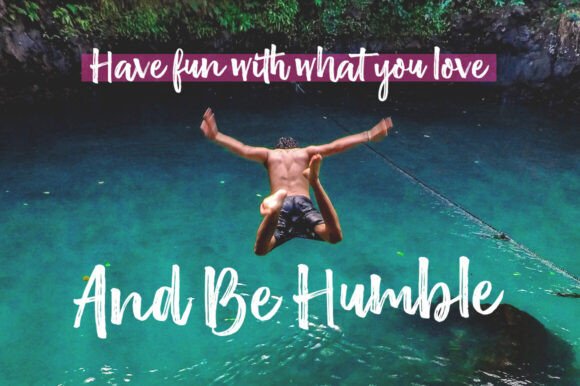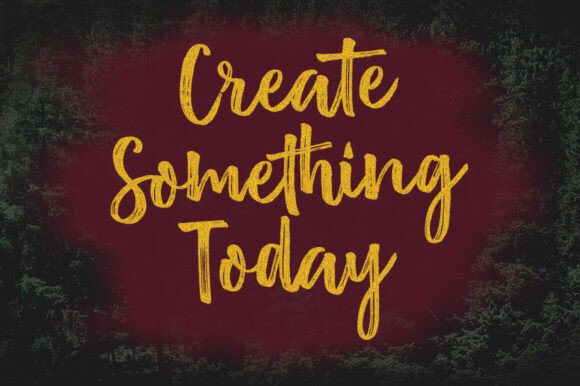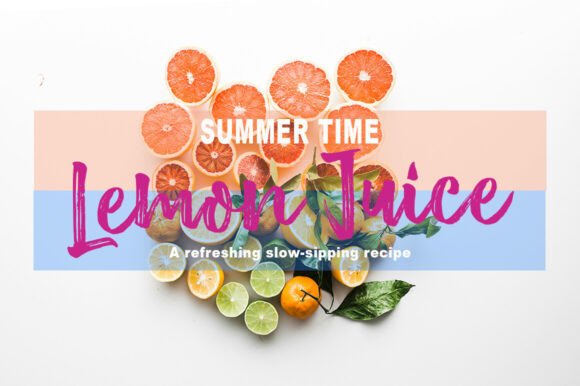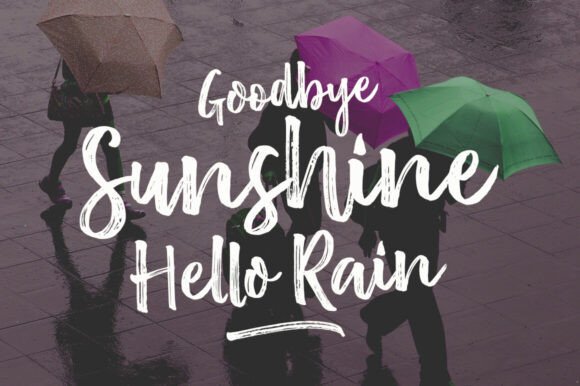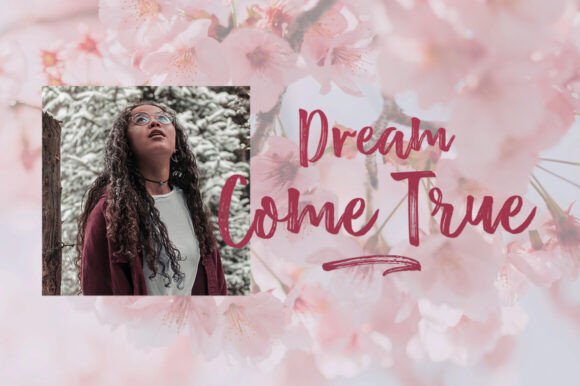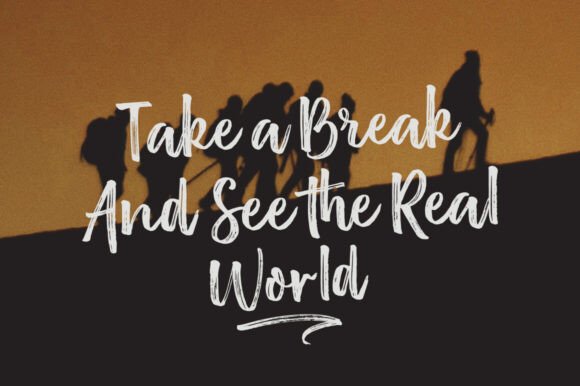
Introduction to Shellow Font
Have you ever been working on a creative project and suddenly, the perfect font pops into your head? For designers, finding that elusive font can be the difference between a mediocre design and a stunning one. It happened to me recently, and I discovered the Shellow Font – a super casual hand brushed script that has been making waves in the design community.
This high-quality design resource boasts a quirky, hand-drawn look with detailed brush stroke texture that adds an extra layer of depth to any project. Whether you’re working on a title, signature, or letterhead, Shellow Font is sure to make your design stand out. Plus, with a transparent background, you can easily integrate it into any design without worrying about distractions.
Key Features of Shellow Font
- High-quality design resource suitable for creative projects, with a unique and modern aesthetic.
- Perfect for use in various creative projects, including logos, branding materials, and editorial designs.
Honest Review: Shellow Font
As a designer, I’m always on the lookout for high-quality design resources to elevate my creative projects. The Shellow Font caught my eye with its unique and playful style. I was excited to dive in and see if it lived up to my expectations.
- ✨ The Shellow Font has a beautiful, cursive script that’s perfect for titles and headings.
- ✨ The font is highly customizable, allowing me to adjust the color and size to fit my design needs.
- ✨ The transparent background option makes it easy to layer over other design elements.
- ⚠️ The font can be a bit too ornate for some designs, making it difficult to read.
- ⚠️ There are limited font weights and styles available for download.
Overall, I’m impressed with the Shellow Font. It’s a great addition to any designer’s toolkit, especially for creative projects that require a touch of whimsy. While it may not be suitable for all designs, it’s definitely worth considering for those looking for a high-quality, free download.
Getting the Most Out of Shellow Font
For optimal results, use the Shellow Font on a transparent background to create a clean and modern design. Experiment with different font styles and combinations to add depth and visual interest to your project.
The Shellow Font is suitable for a variety of design projects, including business cards, logos, and marketing materials. Its versatility and high-quality design make it an excellent choice for creative professionals and hobbyists alike.